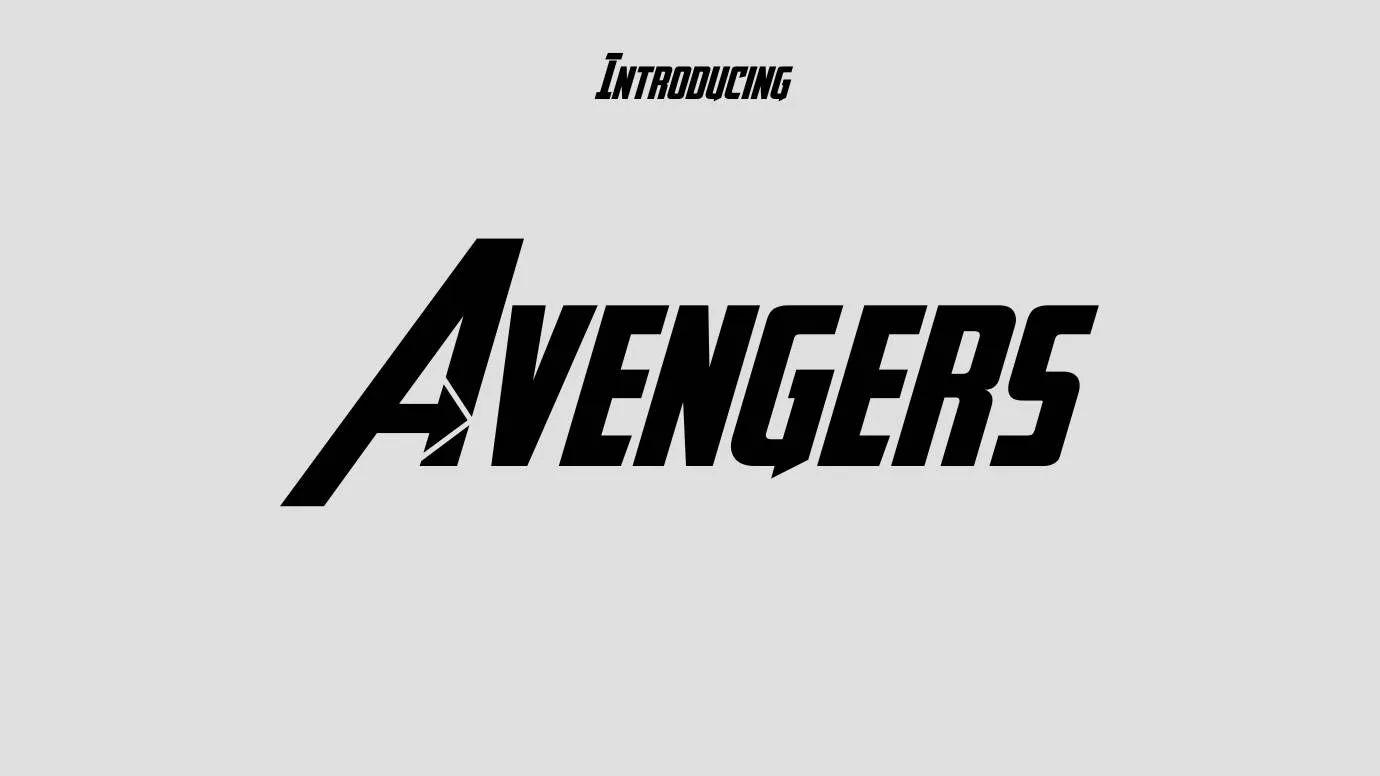
Avengers Font Family is a very popular and modern font family that is known by the name Avengers Font. This classic typeface is designed for American Film logos and for film title posters.
Michael Gene Adkins is a brilliant mind designer who works on the creation of this texture. Honda logo font is looking closest to this typography. The designer allows to use the generator tool of this typeface.
| Name | Avengers Font |
| Type | Logo |
| Designer | Michael Gene Adkins |